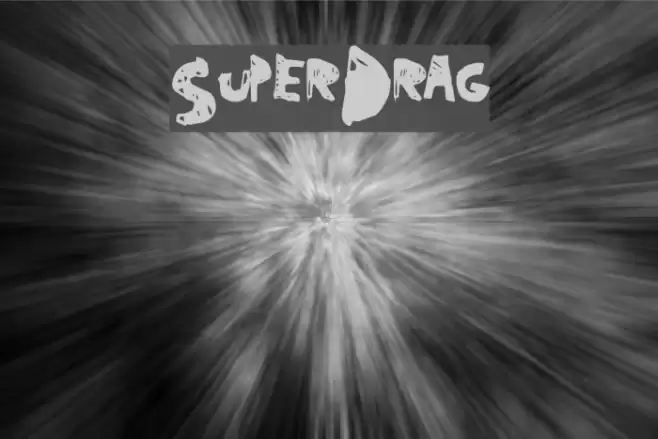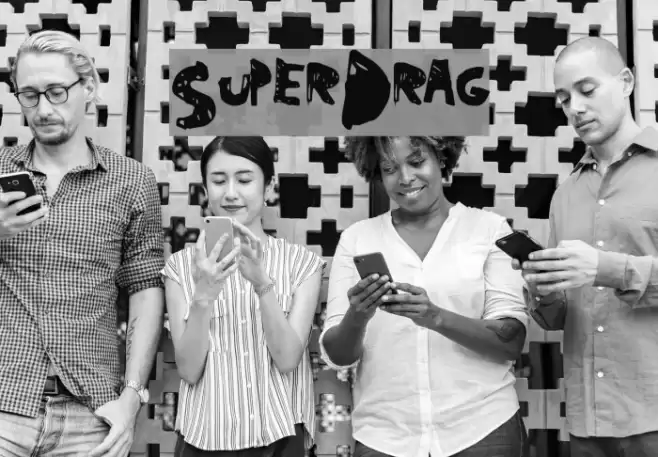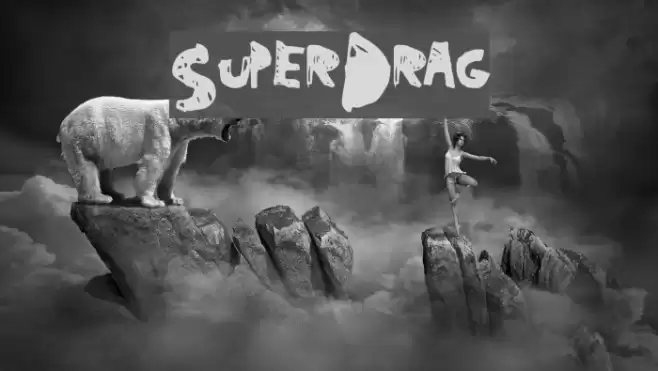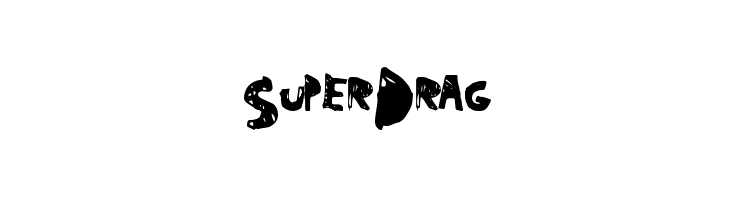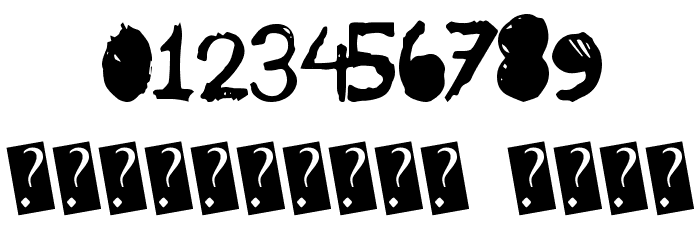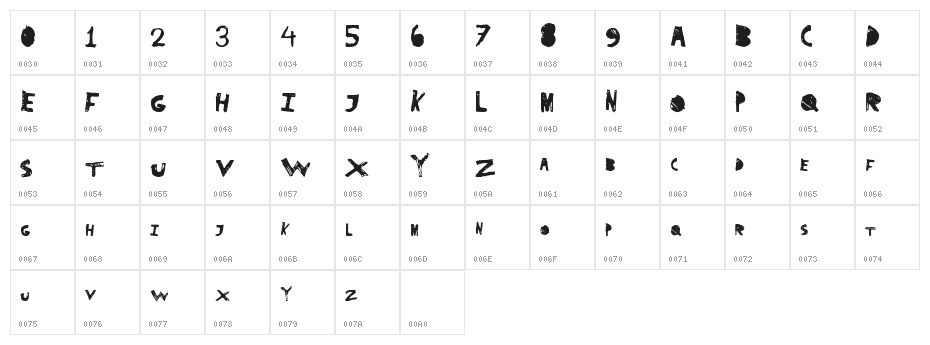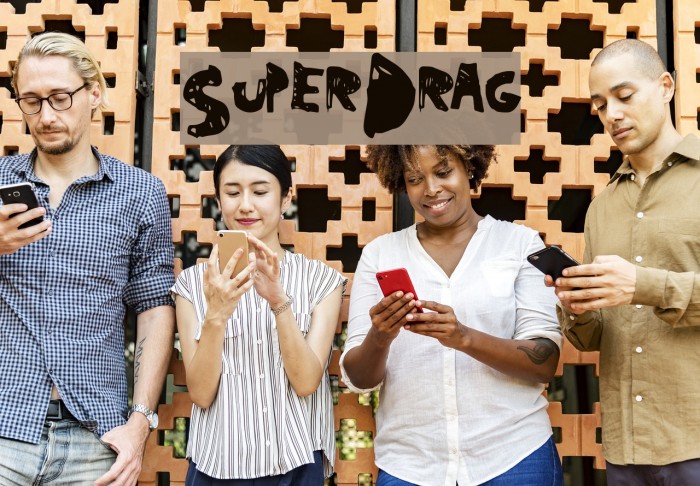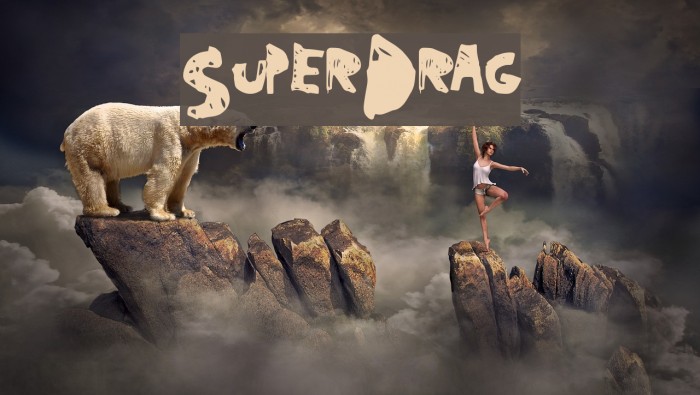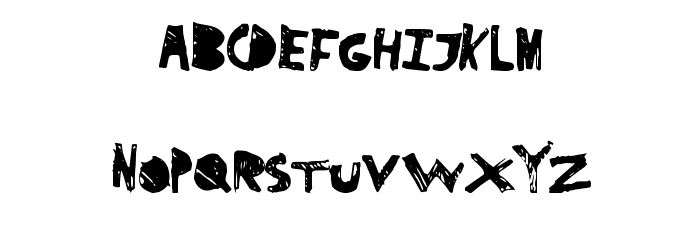
SuperDrag Font
SuperDrag Description
This font features a bold and playful design with a distressed, grunge-like texture. Each character appears to have been hand-drawn, giving it a unique and artistic flair. The letters are irregular in shape, with varying thicknesses and rough edges, creating a dynamic and energetic appearance. The numbers and special characters maintain this style, ensuring consistency throughout the font. This font is ideal for projects that require a bold statement or a creative, unconventional look.
A bold, distressed font with a playful, hand-drawn appearance from Cartoon fonts.